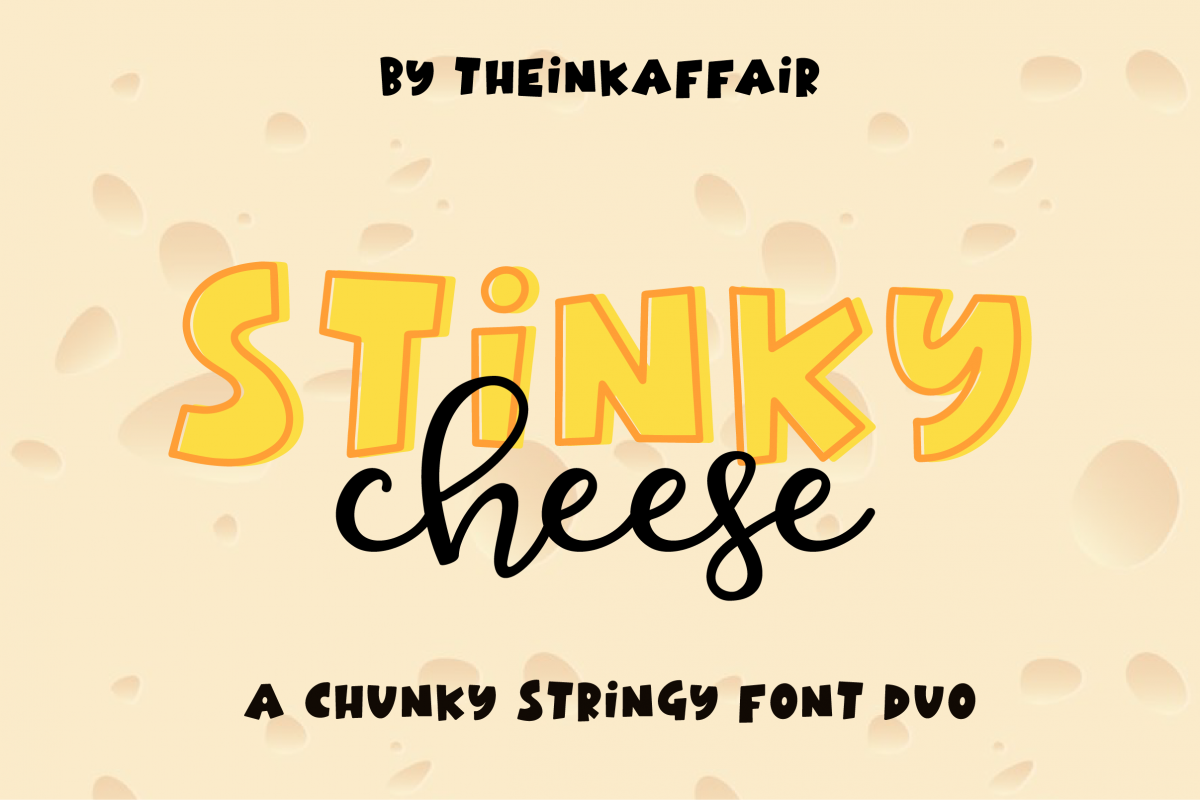
Stinky Cheese Font Duo
How do you like your cheese? Not stinky, you say? We'll change your mind!
Meet Stinky Cheese - it's chunky, it's stringy, it's perfect!! .. and not having it in your font collection would just .. well... STINK!
Stinky Cheese is a font duo that comes with a beautifully creamy sans display font and a fruity script font - they go together like cheese and wine!
- Stinky Cheese Sans - Comes with hollow uppercase and solid lowercase letters, numbers and punctuation as well as international language support.
- Stinky Cheese - includes uppercase, lowercase, numbers and punctuation.